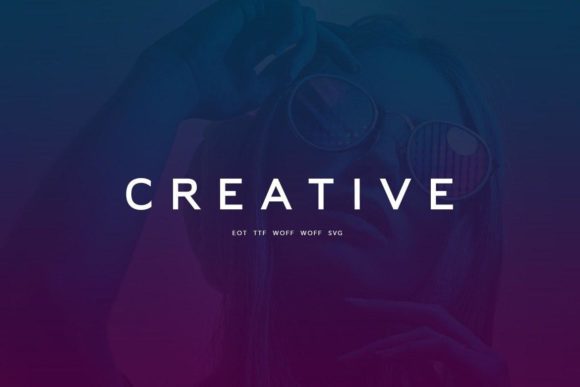
Introducing Grover Font: The Simple and Natural Sans Serif for Your Creative Projects
Are you on the hunt for a font that’s simple, natural, and versatile? Look no further than Grover Font! This sans serif font is perfect for designers and crafters who want to add a touch of elegance and sophistication to their projects. Whether you’re working on a logo, poster, headline, or any other creative endeavor, Grover Font is an excellent choice.
What Makes Grover Font Stand Out?
Grover Font is a sans serif font, which means it doesn’t have the small lines or flourishes that you typically find at the ends of letters. This gives it a clean and modern look that’s perfect for a wide range of applications. Here are a few key features that make Grover Font stand out:
- Simple and Natural: Grover Font has a straightforward and uncomplicated design that’s easy on the eyes. Its natural look and feel make it perfect for projects that require a subtle touch.
- Versatile: Grover Font is incredibly versatile and can be used for a wide range of projects, from logos and posters to headlines and more.
- Elegant and Sophisticated: Despite its simplicity, Grover Font has an elegant and sophisticated feel that’s sure to elevate your designs.
Uses for Grover Font
So, what can you use Grover Font for? The possibilities are endless! Here are a few ideas to get you started:
- Logos: Grover Font is perfect for logos that require a simple and elegant look. Its clean design makes it easy to read and recognize.
- Posters: Whether you’re creating a poster for a movie, event, or product launch, Grover Font is an excellent choice. Its bold and eye-catching design is sure to grab attention.
- Headlines: Grover Font is perfect for headlines that require a touch of sophistication. Its clean and modern design makes it easy to read and understand.
- Branding: Grover Font can be used for branding projects, such as business cards, letterheads, and more.
Why Choose Grover Font?
So, why should you choose Grover Font for your next project? Here are a few reasons:
- Unique and Creative: Grover Font has a unique and creative design that’s sure to set your project apart from the rest.
- Easy to Read: Grover Font is incredibly easy to read, making it perfect for projects that require a clear and concise message.
- High-Quality: Grover Font is a high-quality font that’s designed to deliver exceptional results.
Tips for Using Grover Font
Here are a few tips for using Grover Font in your next project:
- Use it with a contrasting background: Grover Font looks best on a contrasting background that allows it to stand out.
- Experiment with different sizes: Grover Font can be used at a variety of sizes, from small and delicate to large and bold.
- Pair it with other fonts: Grover Font can be paired with other fonts to create a unique and creative look.
In conclusion, Grover Font is a simple and natural sans serif font that’s perfect for designers and crafters who want to add a touch of elegance and sophistication to their projects. Its versatility, elegance, and sophistication make it an excellent choice for a wide range of applications. Whether you’re working on a logo, poster, headline, or any other creative endeavor, Grover Font is sure to deliver exceptional results.